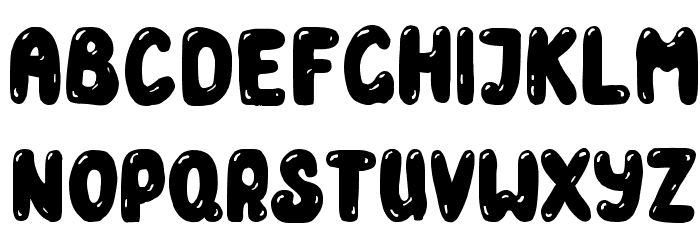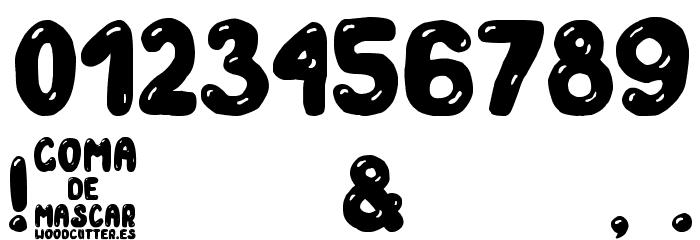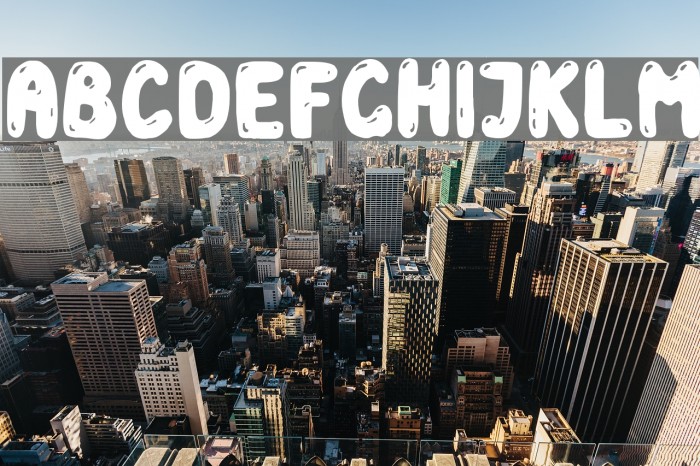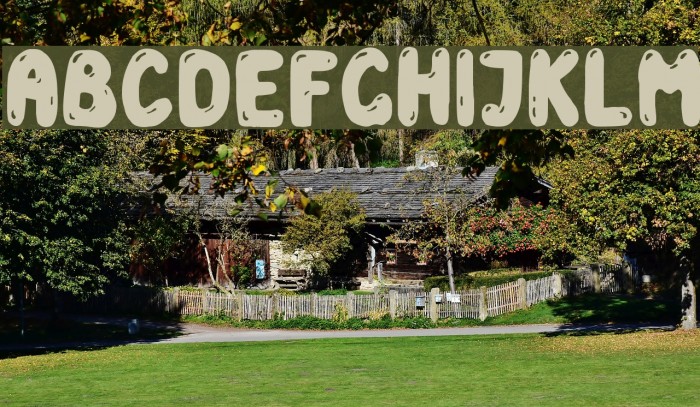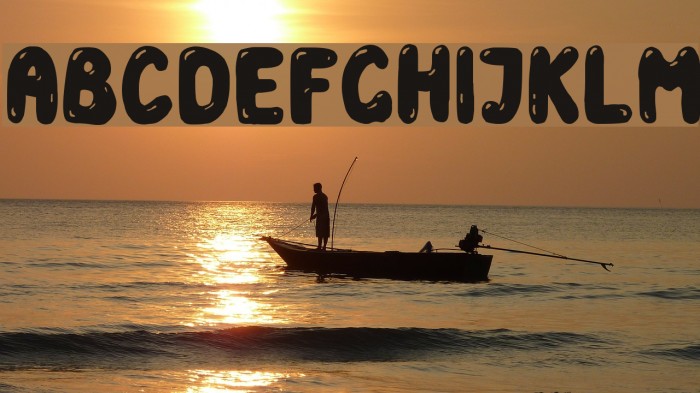
Goma de Mascar Font
This playful and bold font features rounded, bubble-like characters that exude a sense of fun and whimsy. The letters are thick and substantial, with a slightly irregular shape that adds to their charm. The font's design is reminiscent of cartoon lettering, making it ideal for projects that require a lighthearted and informal touch. The numbers and special characters maintain the same bubbly style, ensuring consistency across all text elements. Its unique appearance makes it stand out, perfect for capturing attention in creative designs.
A playful, bubble-like font with bold, rounded characters.
- Proposed Projects: Ideal for children's books, comic strips, playful branding, party invitations, and any project needing a fun, informal touch.
- Overall Style: Playful, Cartoonish, Fun
- Use Case: Headlines, Logos, Posters, Invitations